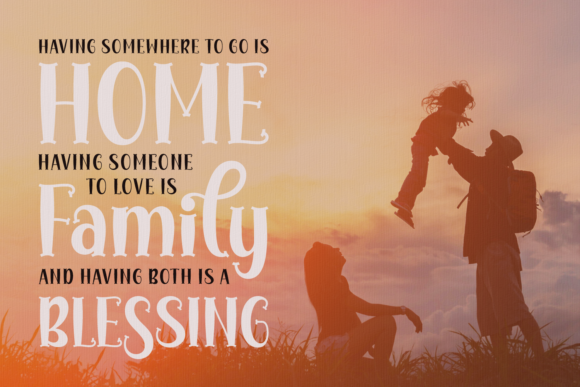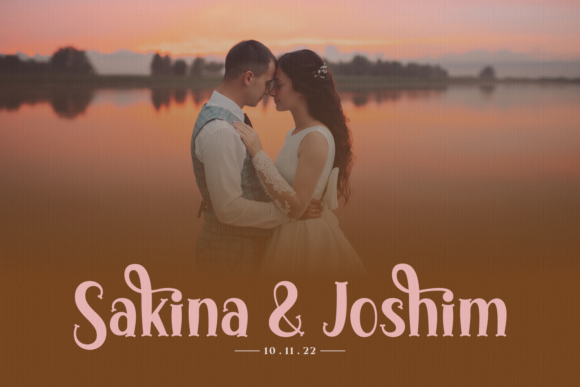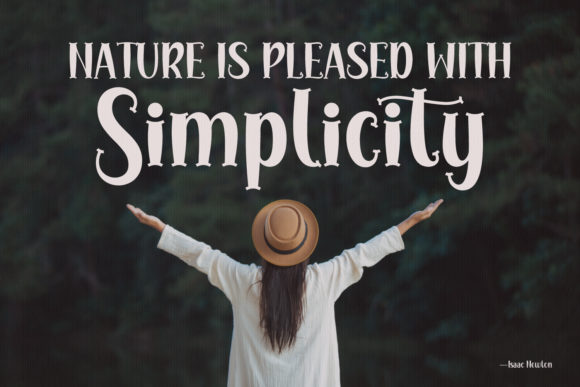
Shalye Font
About Shalye Font
Introducing “Shalye,” an enchanting handwritten font designed to add a touch of magic to your projects. This versatile script font offers a wide spectrum of applications, ranging from greeting cards to headlines, and is guaranteed to infuse a romantic feel into your next project. What’s more, “Shalye” is PUA encoded, ensuring effortless access to all its amazing glyphs and ligatures, providing you with a seamless and creative design experience.
With its enchanting and romantic style, “Shalye” brings a sense of warmth and personalization to your designs. The versatile script allows for a wide range of applications, making it suitable for various creative endeavors where a touch of magic is desired.
The PUA encoding feature adds an extra layer of convenience, allowing you to easily access a plethora of amazing glyphs and ligatures. This ensures that, regardless of your expertise level, you can explore and implement the font’s full creative potential with ease.
Imagine “Shalye” as the perfect addition to your design toolkit, bringing a romantic and magical touch to your greeting cards, headlines, and beyond. Let its versatile script become a key element in creating captivating and personalized designs.
In summary, “Shalye” is more than just a font; it’s an enchanting handwritten script that promises to infuse a romantic feel into your diverse range of projects. With its PUA encoding providing easy access to an array of amazing glyphs and ligatures, “Shalye” stands as a versatile and delightful choice for designers seeking to add a touch of magic to their creative works.